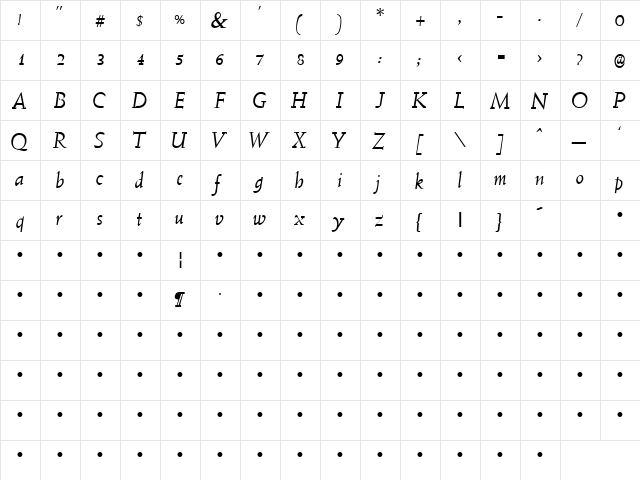
Get Your Wings 3 Italic
Design Context for Get Your Wings 3 Typeface
Get Your Wings 3 is a composed and adaptable typeface that performs quietly and consistently across a wide range of design contexts. The dynamic lean of this cut emphasises speed and emphasis in any layout.